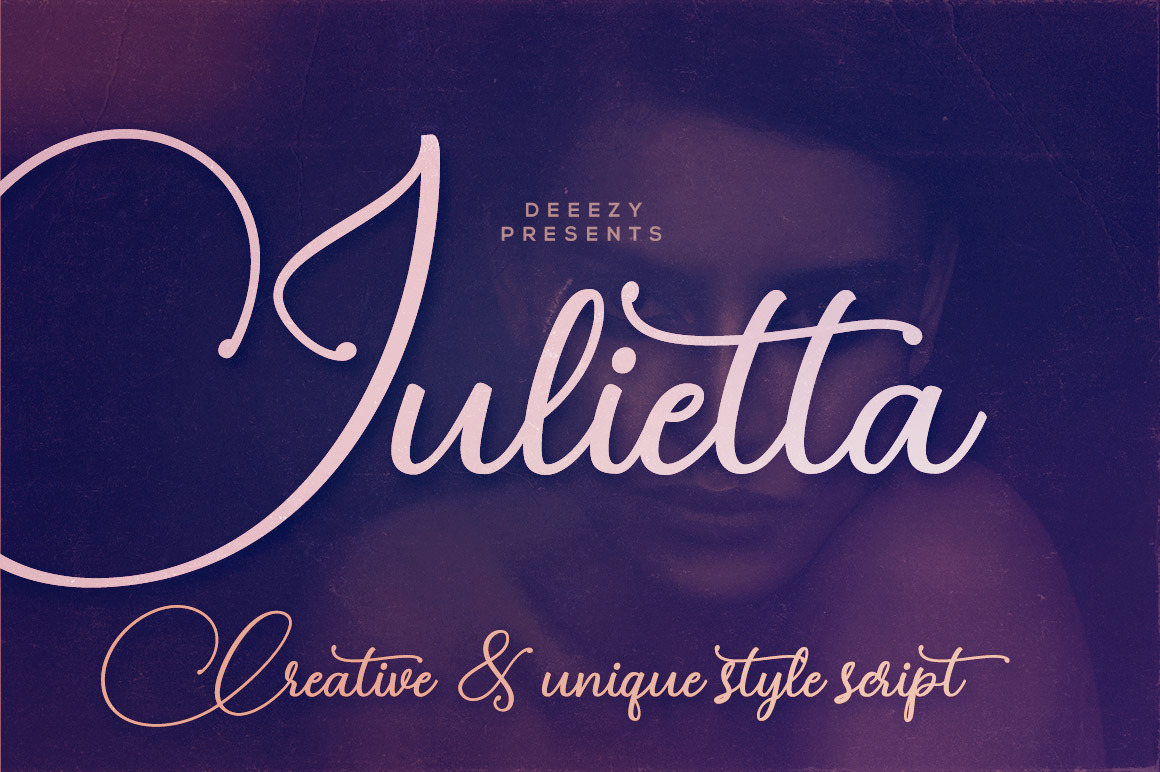
Julietta Script Font
Decorative and handwritten or creative style script font for your new projects. With multi language support and lot of stylistic alternates & swashes. Enjoy ;)